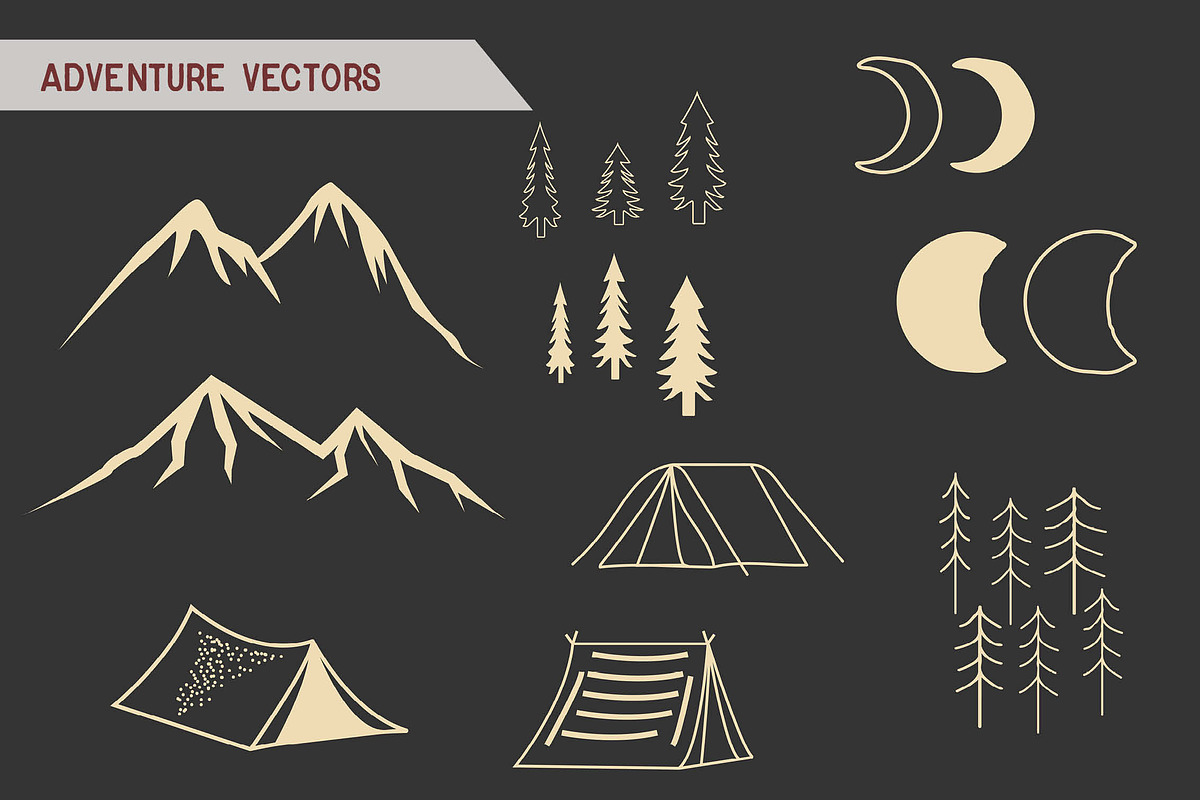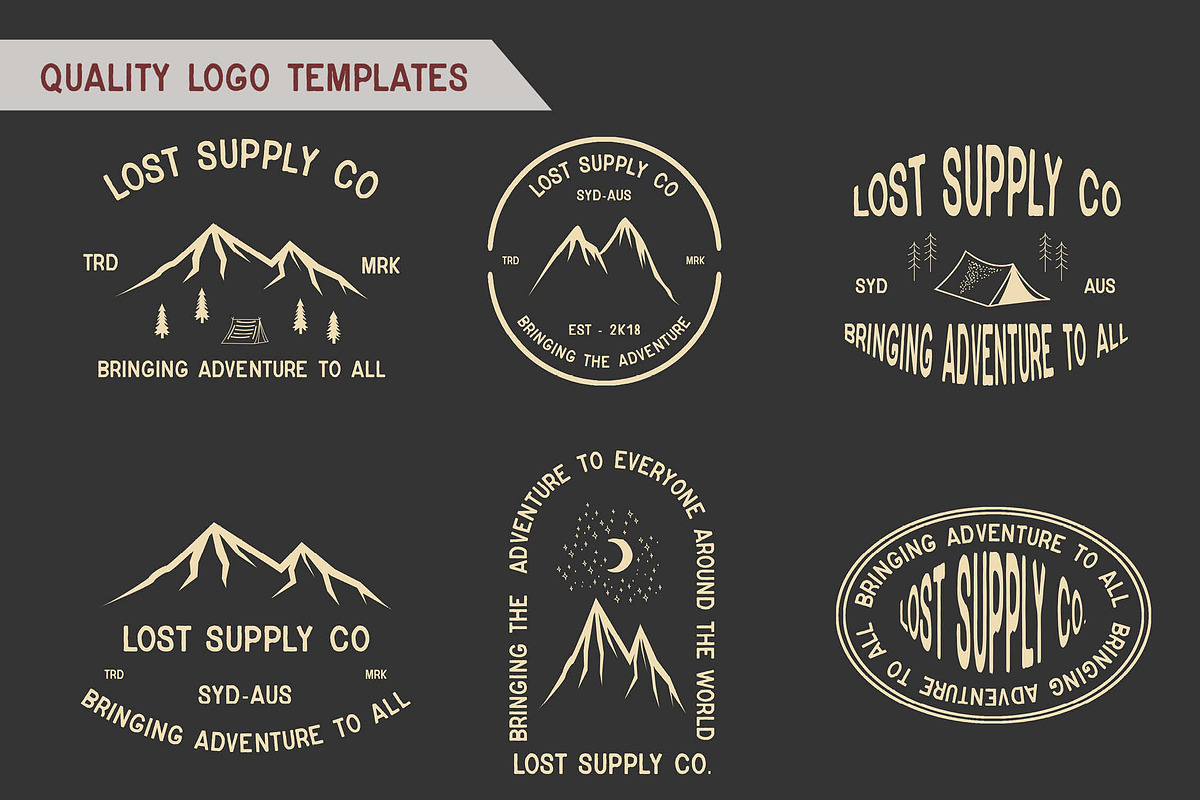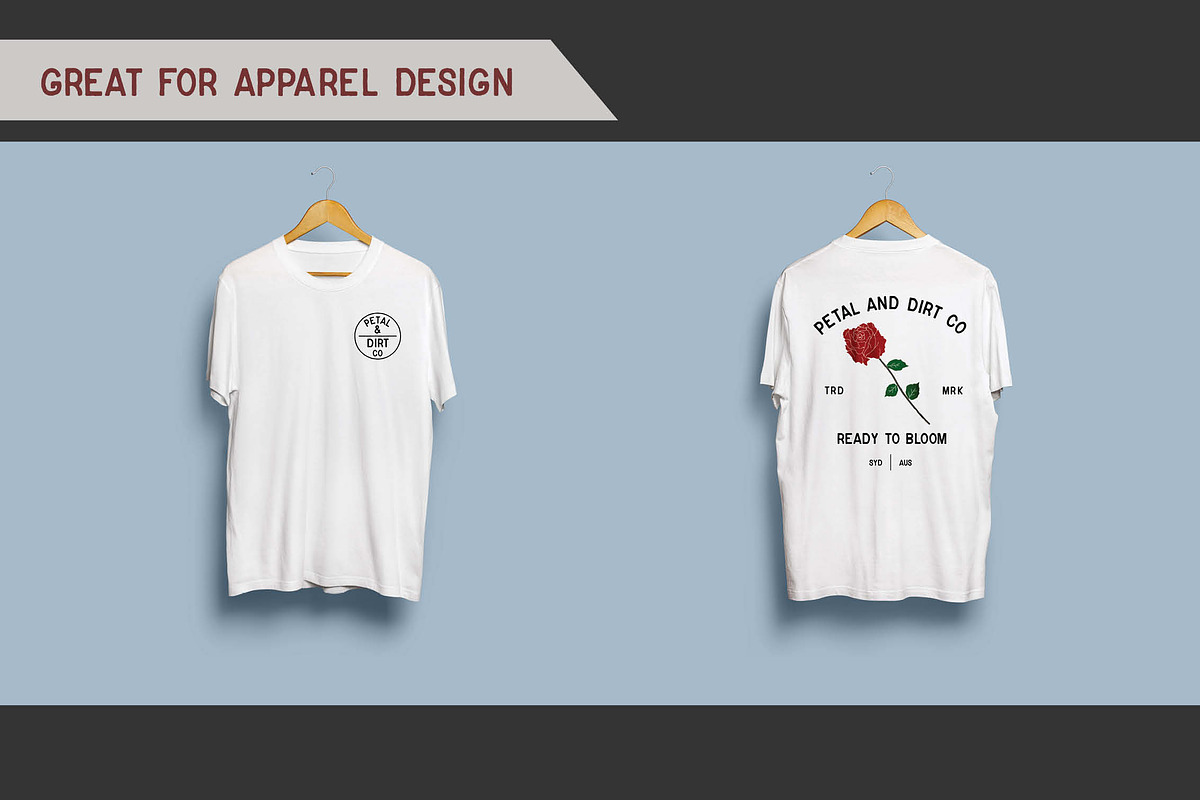
Drifter Font & Buildable Logo-Kit
Drifter is a hand made typeface, perfect for Logotypes, Posters, Apparel Design and Social Media content.
Drifter - A Hand Made Font
6 Quality Logo Templates
Drifter is perfect when you want that rustic feel. I created this font to tie in beautifully with script for a wholistic hand-made feel, but Drifter holds its own as a unique and casual type. With inspiration from the great outdoors and a back-to-nature appeal, Drifter is the perfect choice for your next project.